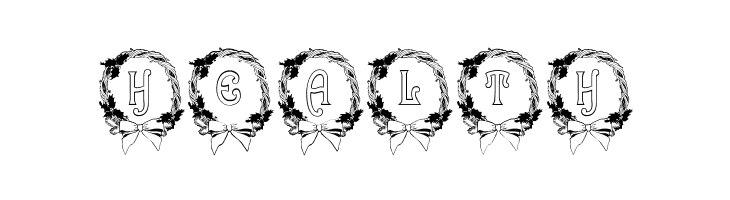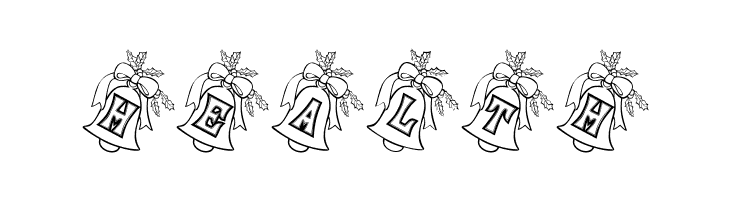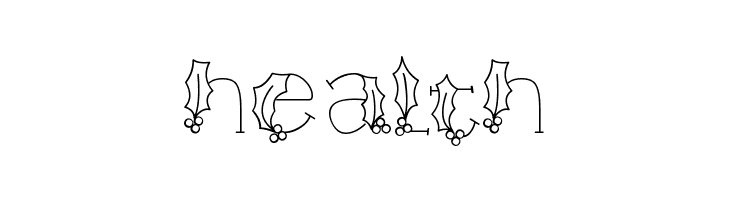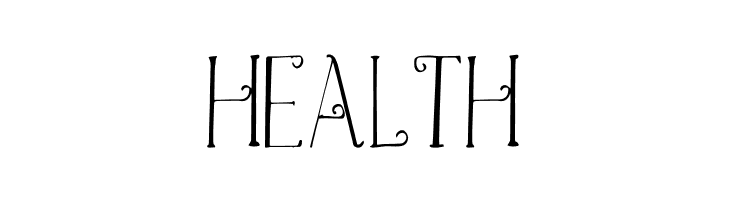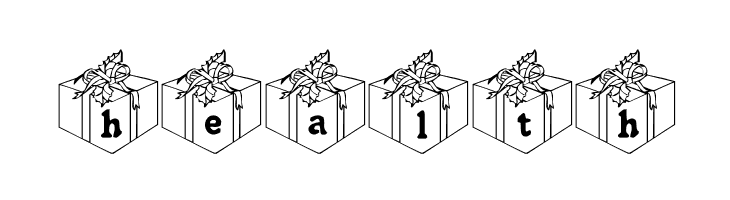
A decorative font with characters encased in festive wreaths, perfect for holiday themes.
A festive decorative font featuring characters within holly-adorned bells.
A festive, decorative font with holly leaf and berry motifs.
A festive, candy cane-inspired font with bold, striped characters.
A whimsical, festive font with elegant curls and a handwritten calligraphy style.
Ornamental font with detailed Christmas wreath illustrations.
A festive font with Santa faces and gift box letters, perfect for holiday themes.
A festive, decorative font featuring Santa and reindeer illustrations with each character.
A festive, decorative font featuring Santa Claus illustrations with each character.
A playful, winter-themed decorative font with bold characters and festive elements.